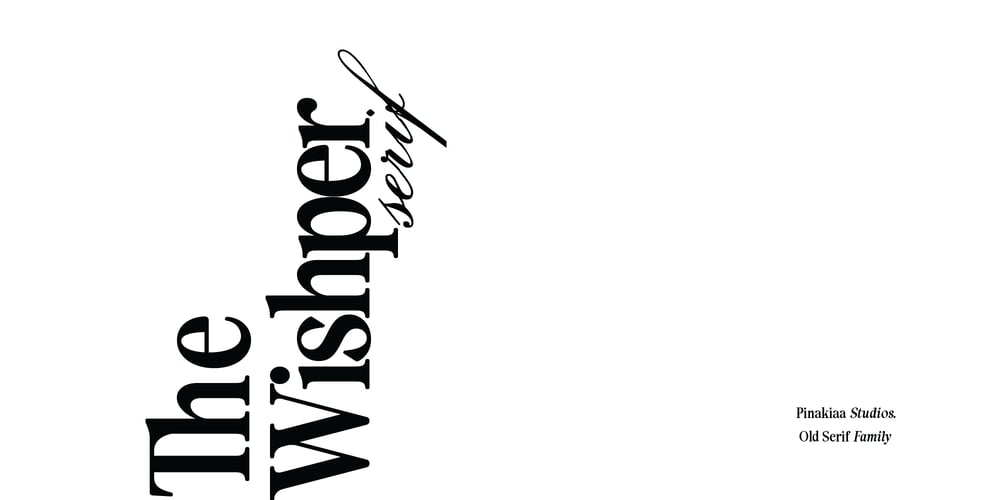
The Wishper Serif
The Wishper Serif font
The Wishper Serif Font Family was designed by Fina Fadhila Rosida, Fina Fadhila and published by Pinakiaa Studios. The Wishper Serif contains 2 styles and family package options. Hello! If you buy my font, please screenshot and tag our Instagram studio @pinakiaa @pinakiaastudios for appreciationThe Wishper Serif font – is a timeless blend of elegance and sophistication, designed to add a touch of refinement to your projects. With its subtle serifs and graceful curves, this font whispers tales of classic charm and understated beauty. Perfect for conveying a sense of tradition with a modern twist, The Whisper Serif lends a sophisticated aura to invitations, branding, and editorial designs alike. Let your words resonate with quiet authority and grace with The Whisper Serif.The Wishper Serif is an exquisitely sharp typeface with a perfect blend of upper and lowercase characters, designed to capture attention in both expansive formats and as a display text (ideal for prominent headers, elegant quotes, compelling calls to action, and more)